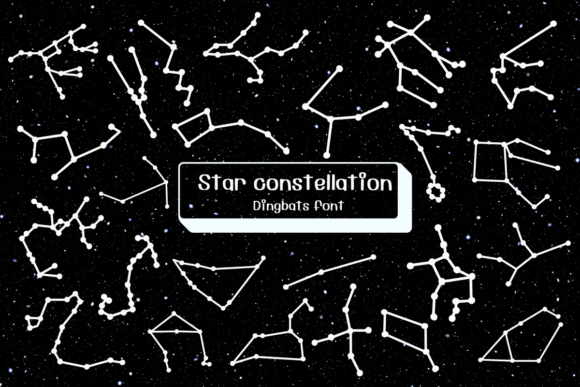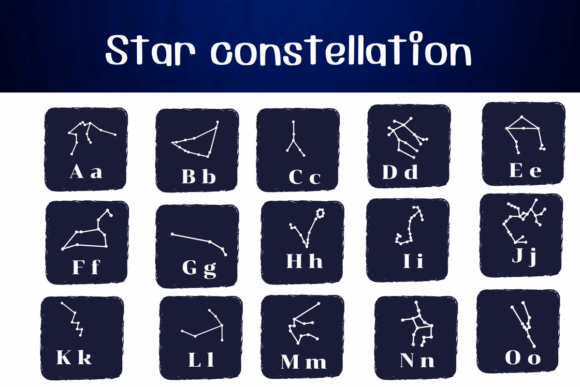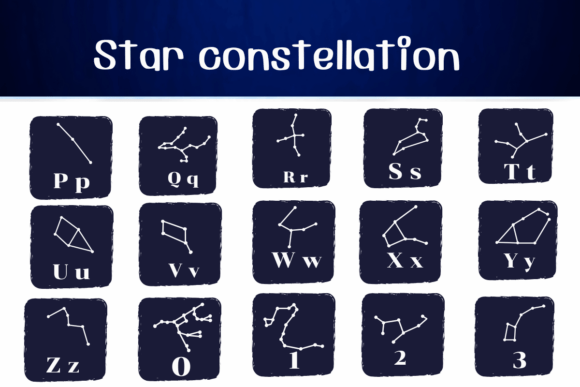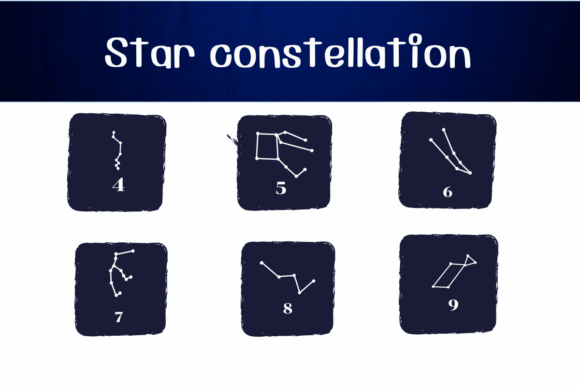
Star Constellation Font
About the Star Constellation Font
Experience the unique personality of Star Constellation Font, a font designed for impact. Star Constellation is a dingbats font with a celestial theme. This font can enhance your creative projects such as wedding invitations, DIY, crafts, decorations, logos, and many other creative ideas.
Star Constellation Font Usage Examples
Star Constellation Font Example